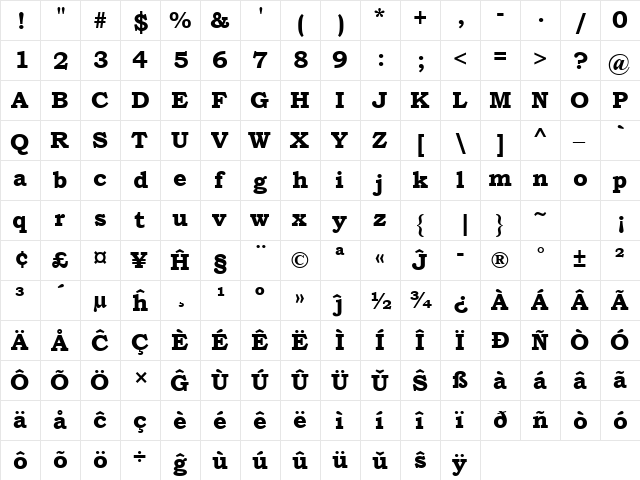
Bookman Old Style Eo Bold
Design Context for Bookman Old Style Eo Typeface
Bookman Old Style Eo is a composed and adaptable typeface that performs quietly and consistently across a wide range of design contexts. Its bold stroke weight gives it real presence on the page.